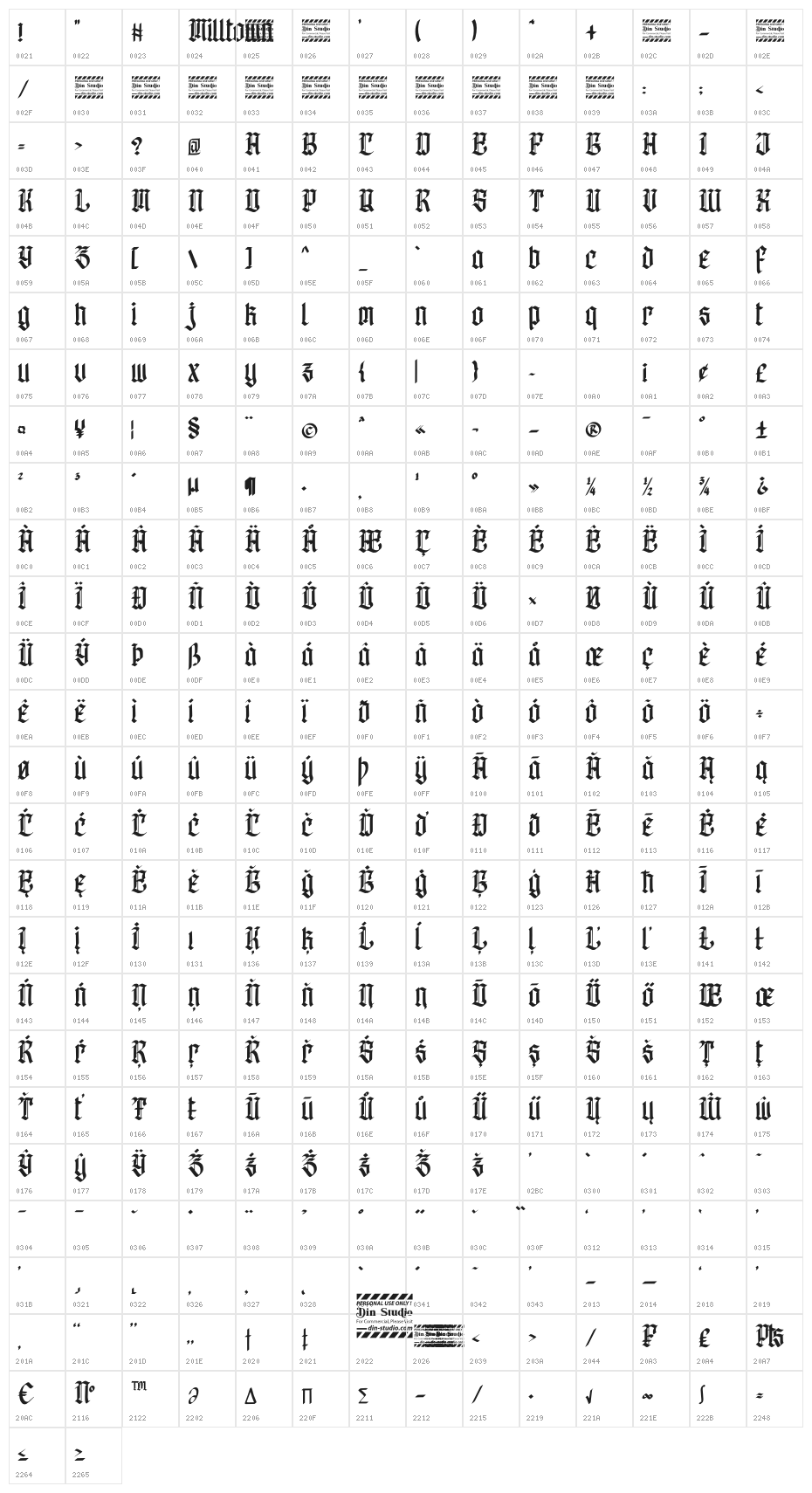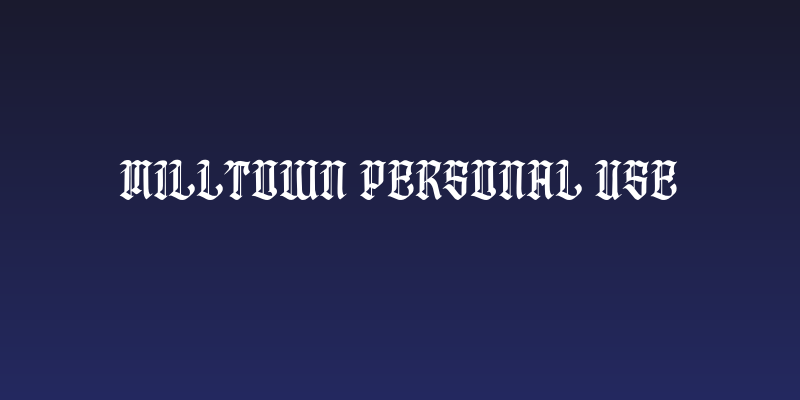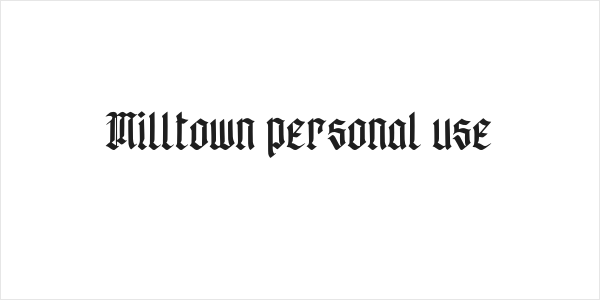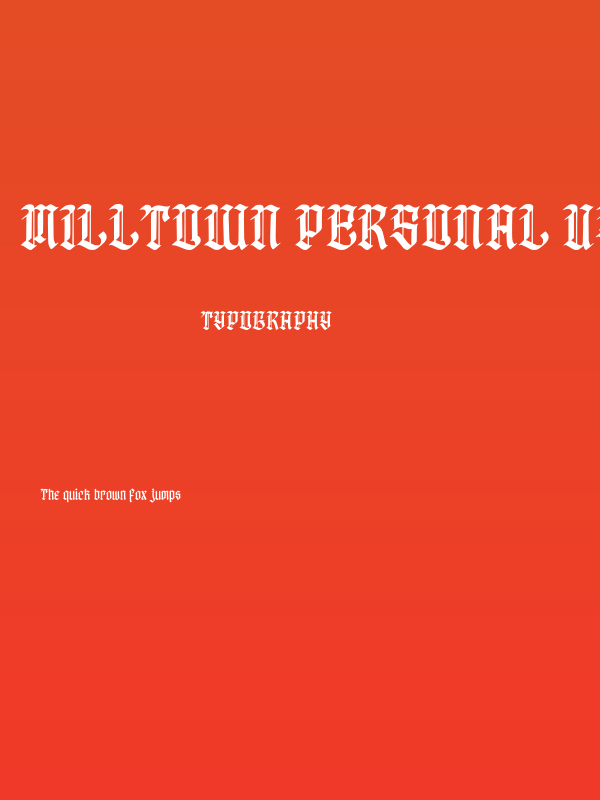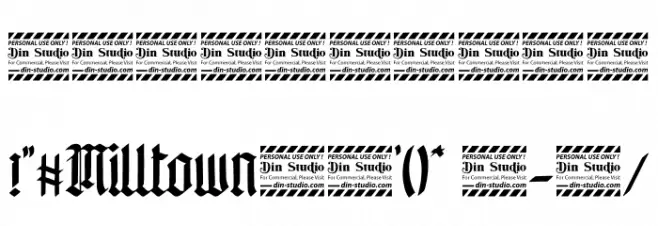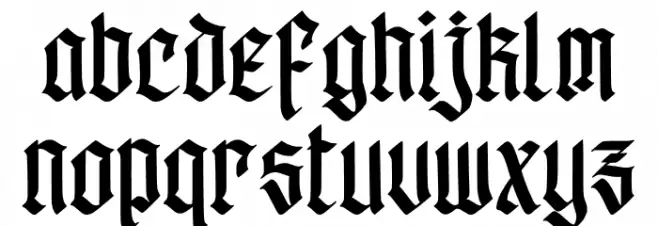
Milltown personal use Font
This font exhibits a traditional blackletter style, characterized by its intricate and ornate design. The letters are bold and angular, with sharp edges and dramatic flourishes that evoke a sense of historical elegance. The uppercase and lowercase letters maintain a consistent aesthetic, with a strong emphasis on vertical strokes and pointed serifs. The numbers and special characters are equally stylized, contributing to the overall cohesive appearance. This font is reminiscent of medieval manuscripts and is ideal for projects that require a touch of classic sophistication.
| Overall Style | Vintage |
| Use Case | Logos, Headlines, Decorative text |
| Proposed Projects | Ideal for vintage-themed designs, historical documents, wedding invitations, or branding that requires a classic and sophisticated look. |